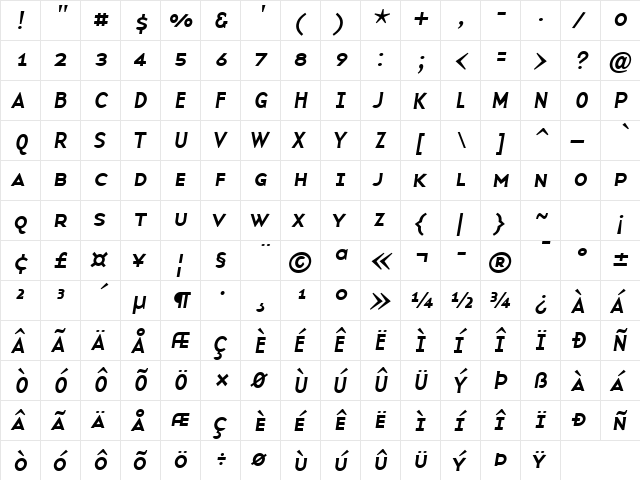
BaseNineSmallCaps Italic
Design Context for BaseNineSmallCaps Typeface
BaseNineSmallCaps takes a measured approach to typography — its balanced proportions and neutral character make it a reliable workhorse for both digital and print work. The slanted form adds forward momentum and visual energy.